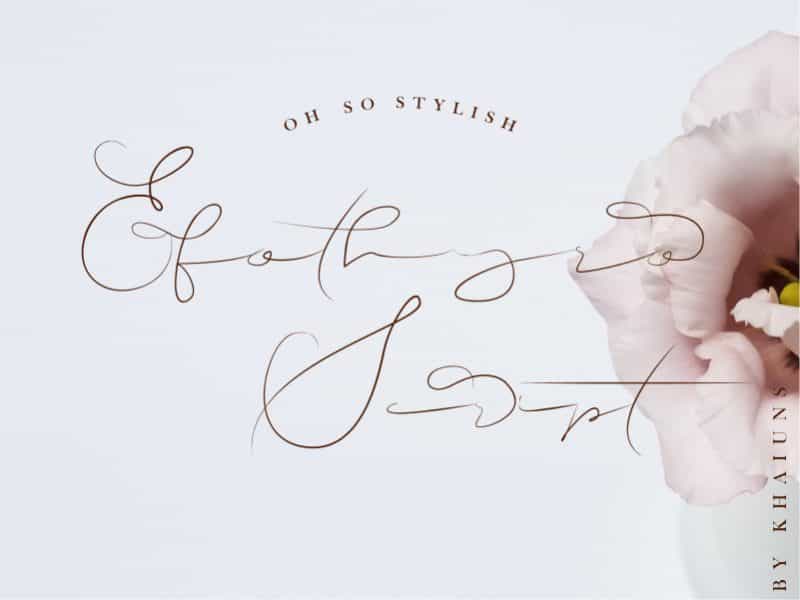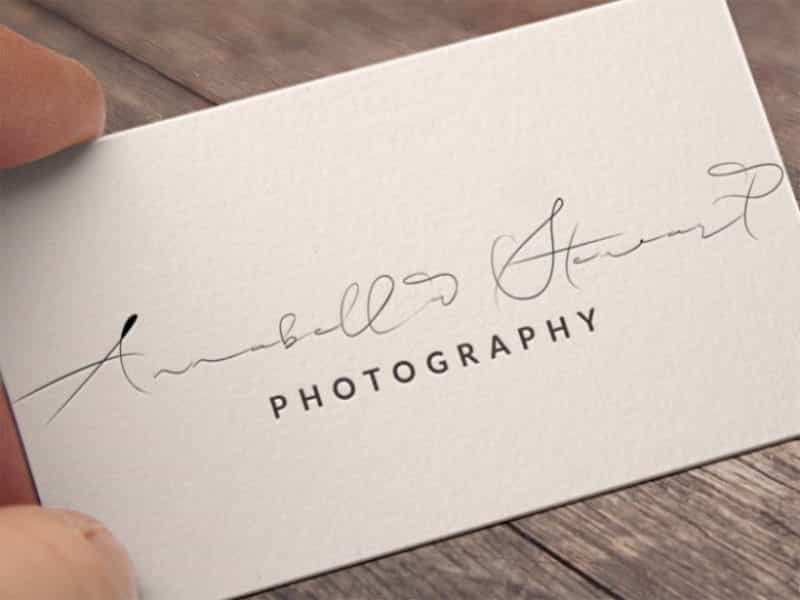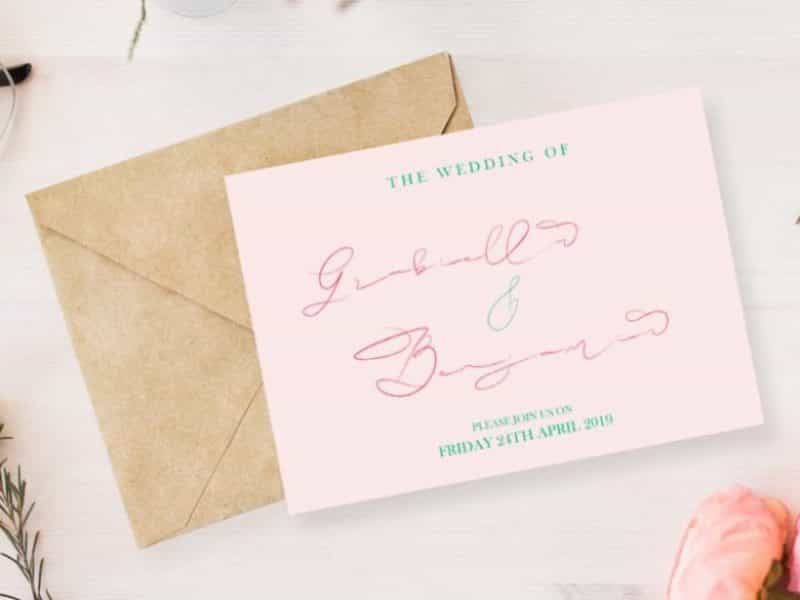
Discover Efothyro Script Font, part of the Commercial Calligraphy Handwritten collection—a versatile and unique font perfect for adding a personal touch to your projects. Download it for free and enjoy crafting designs with style, from invitations to social media posts. This font is available exclusively for personal use, giving you the freedom to create without limits. Unlock your creativity with Efothyro Script Font today!
Efothyro Script Font is Modern Calligraphy Font that looks so elegant and perfect for any stylish project. Efothyro is a perfect font for any design idea it is both modern and chic, it will add a personal touch to your design.